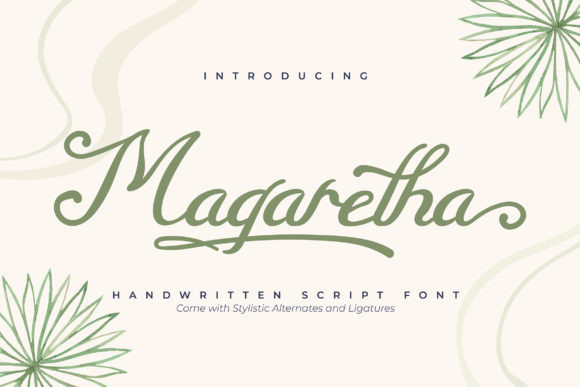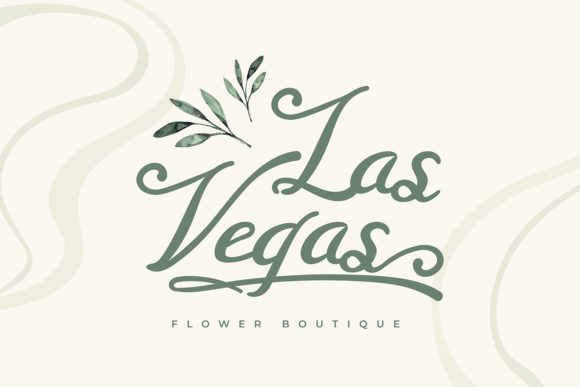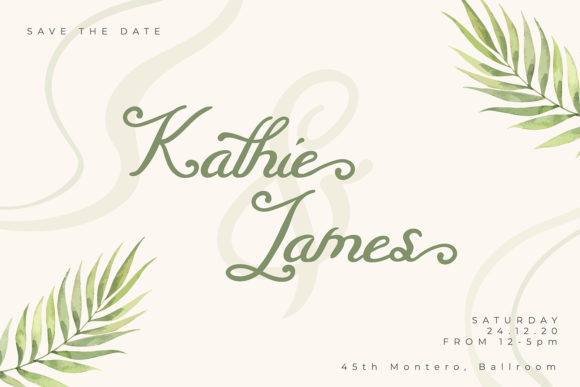
Magaretha Font
Magaretha is a stylish handwritten font, carefully designed to become a top choice. It maintains its classy calligraphic influences while feeling contemporary and trendy. This font is PUA encoded which means you can access all of the glyphs and swashes with ease!